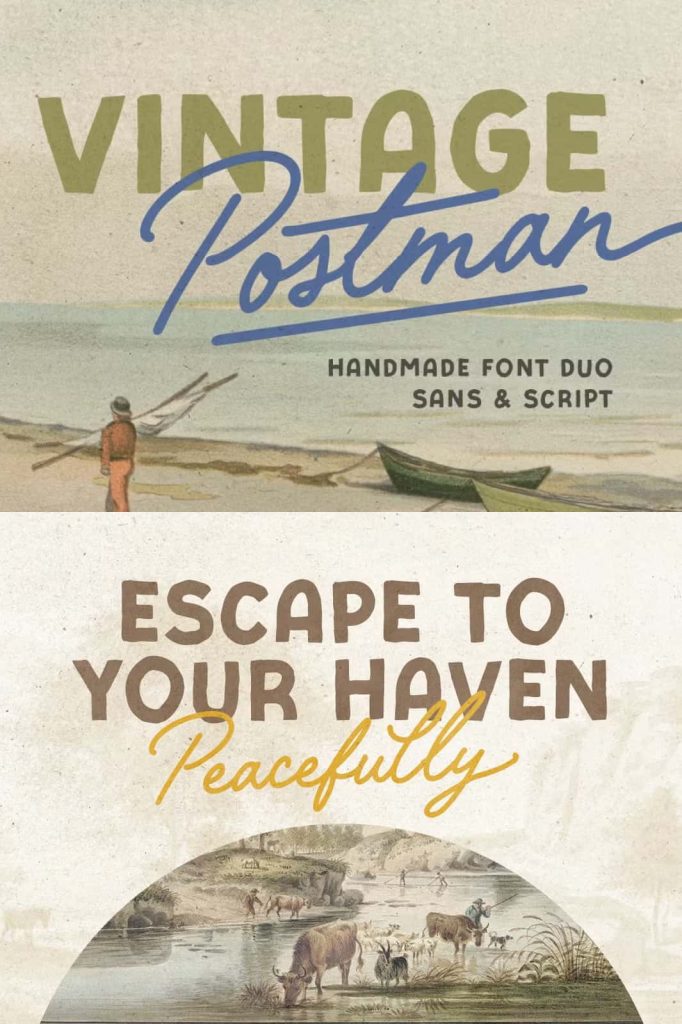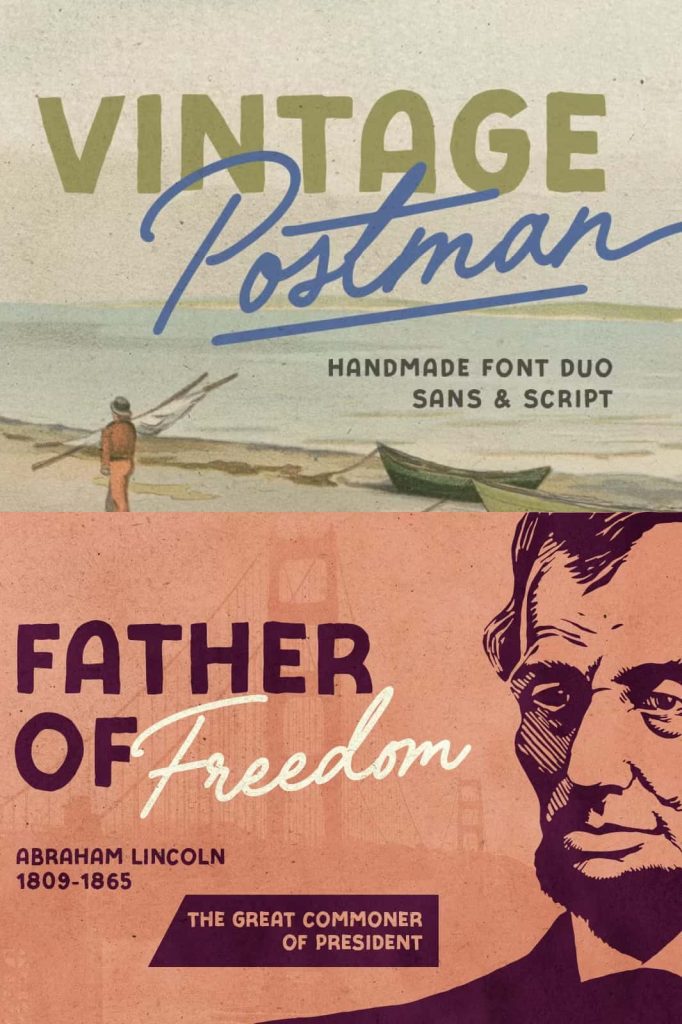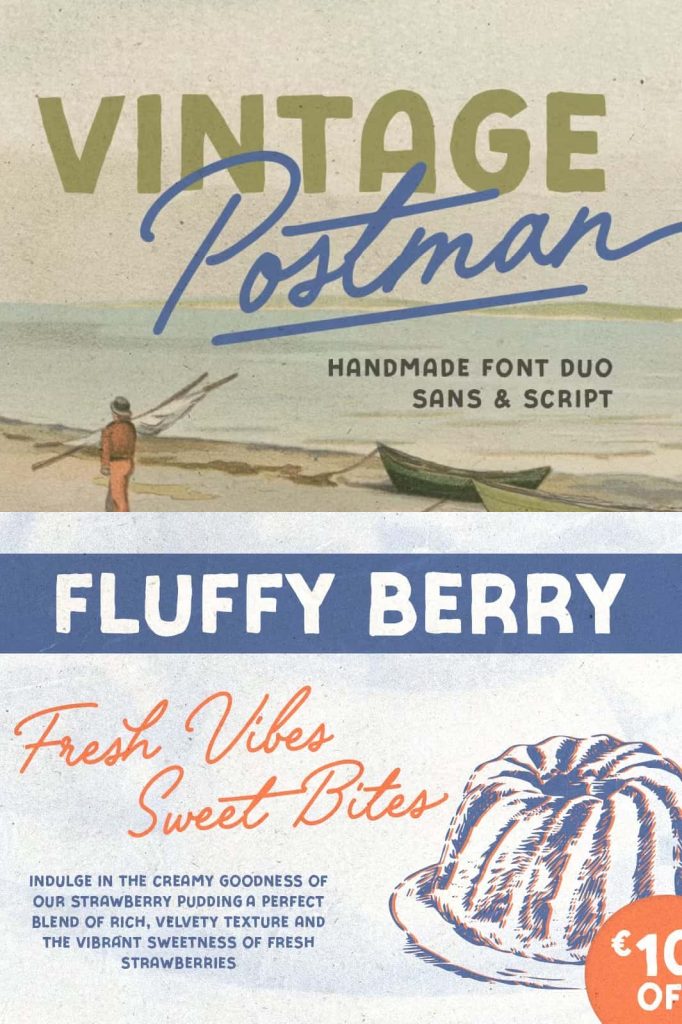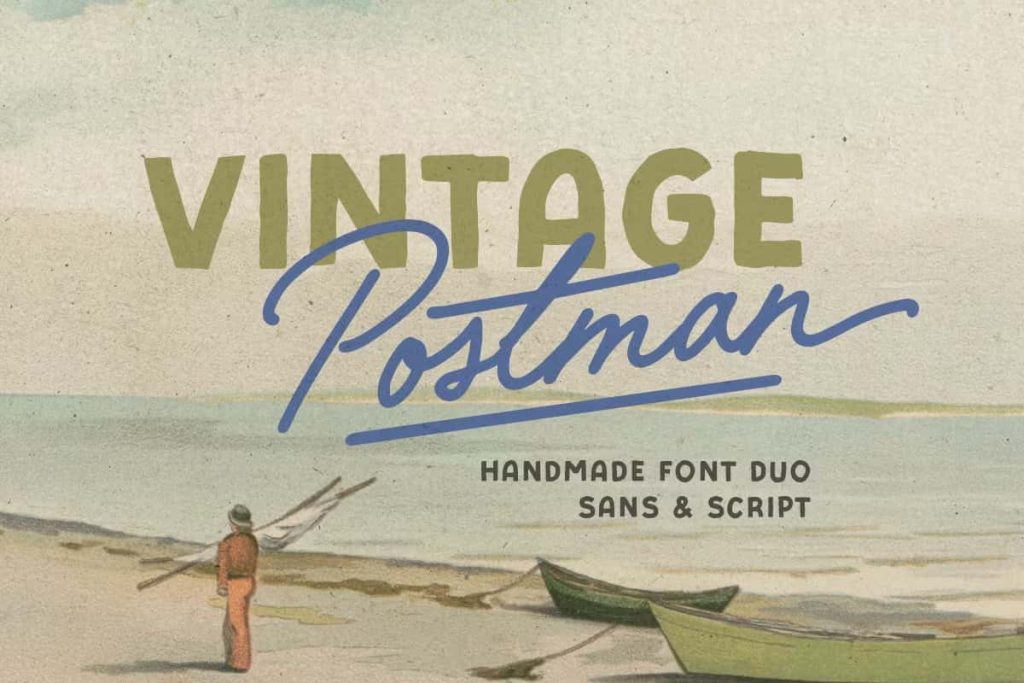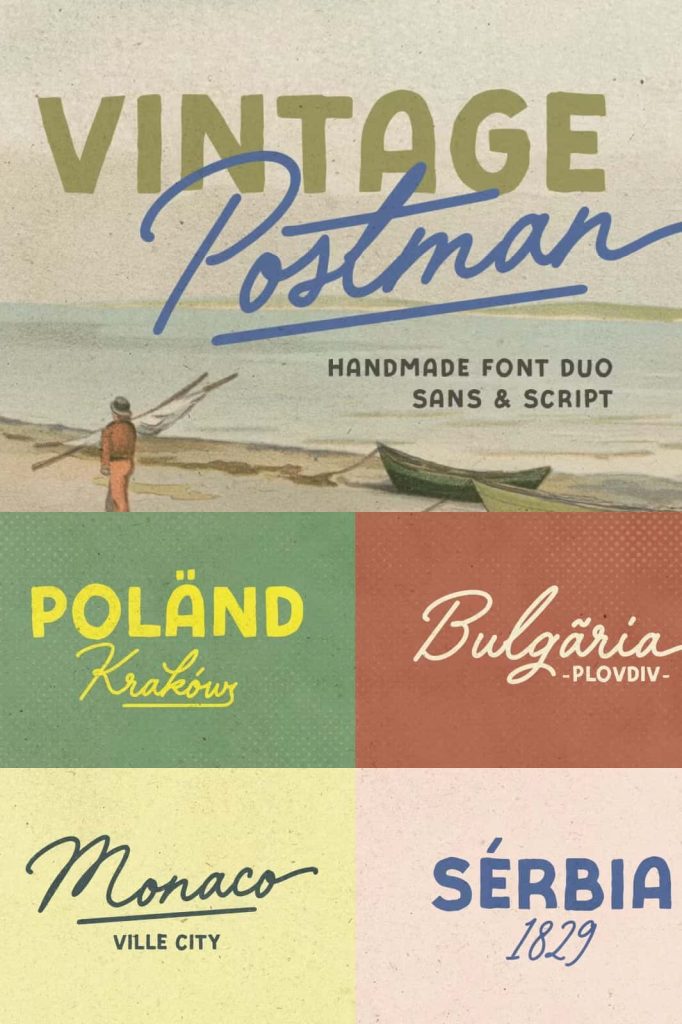
Vintage Postman is a handmade font duo that contains bold sans and monoline script. You can use this font for any purposes especially for design that needs retro and old vibes such as poster, logotype, quote, and branding.